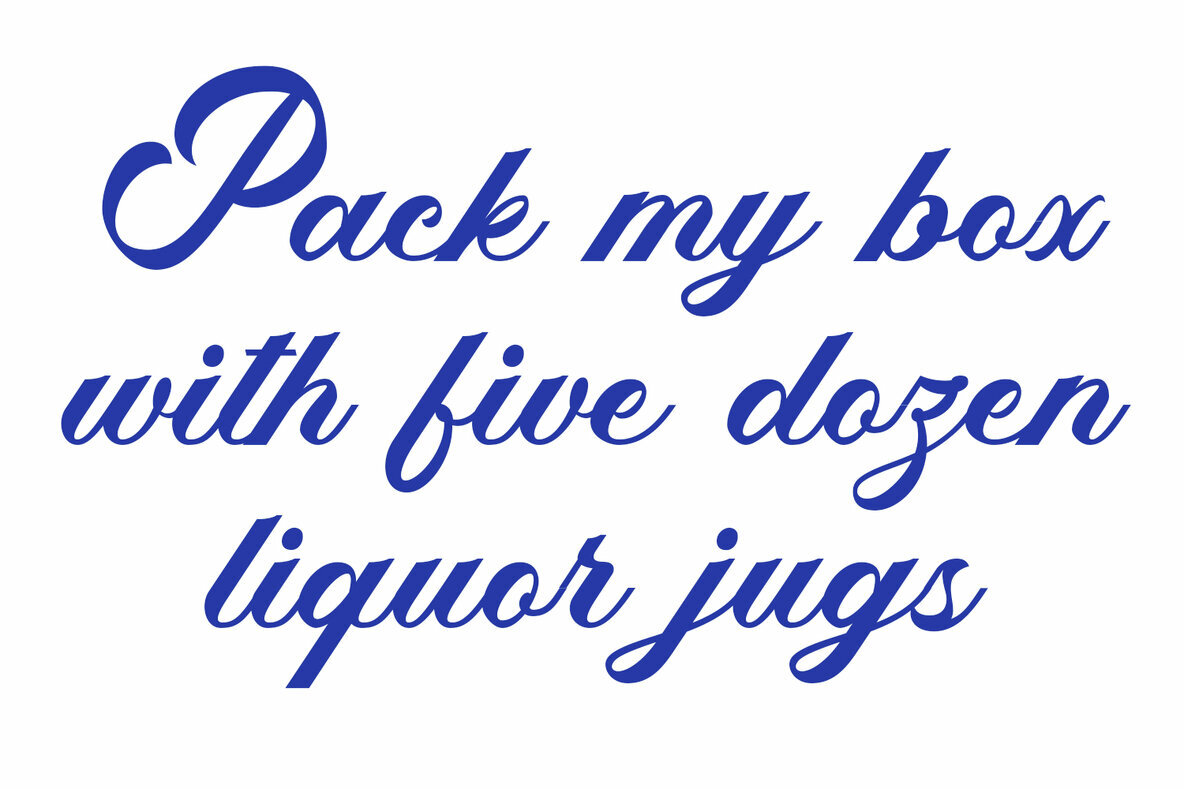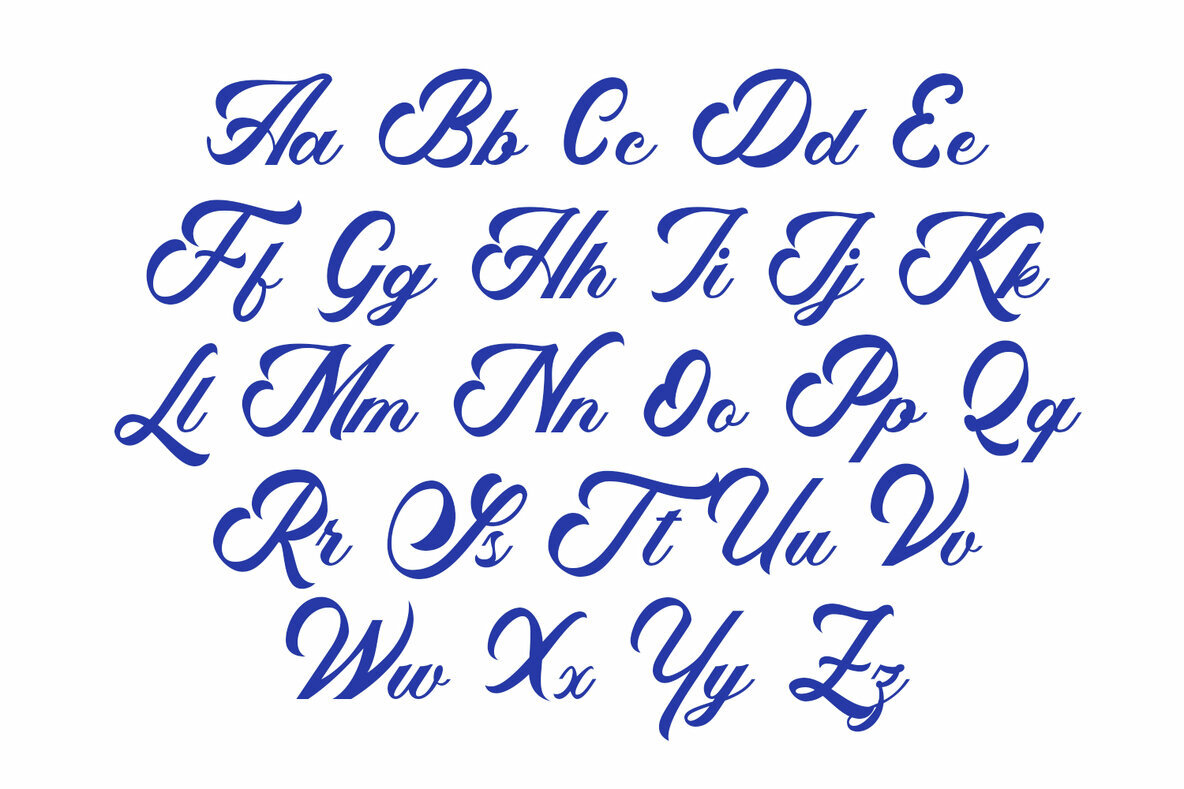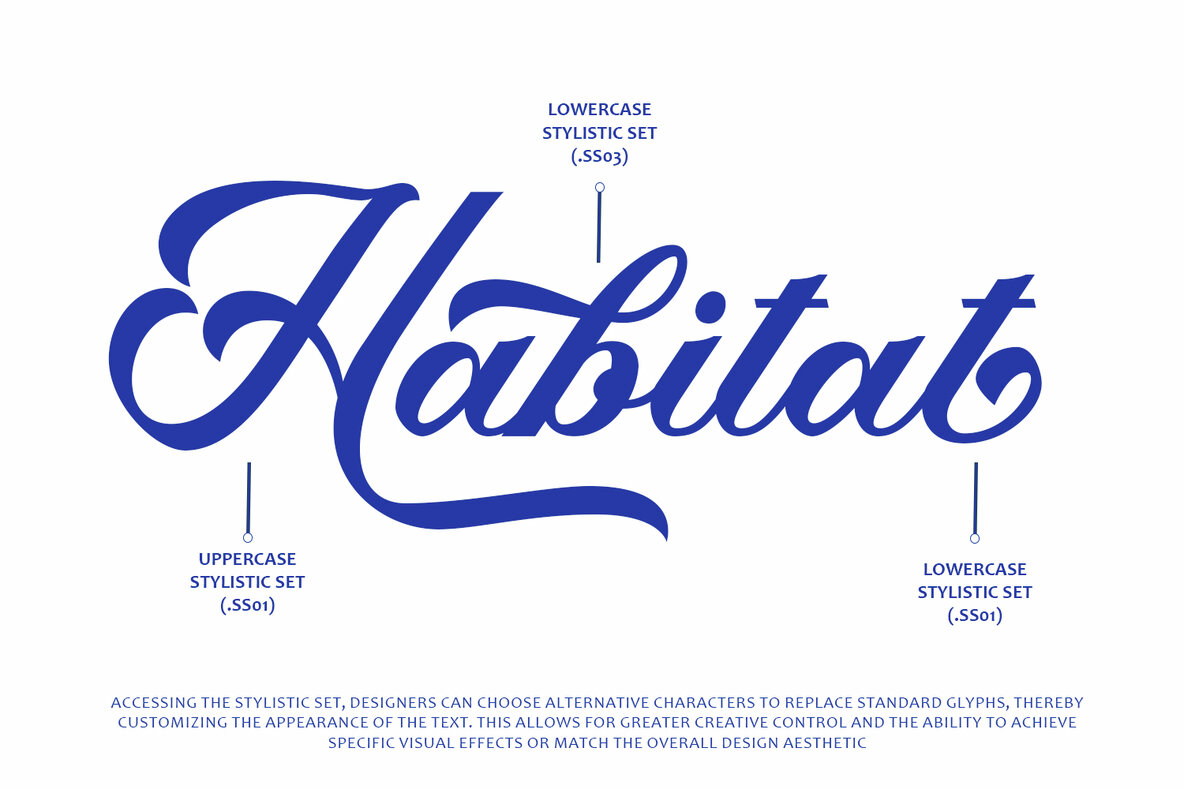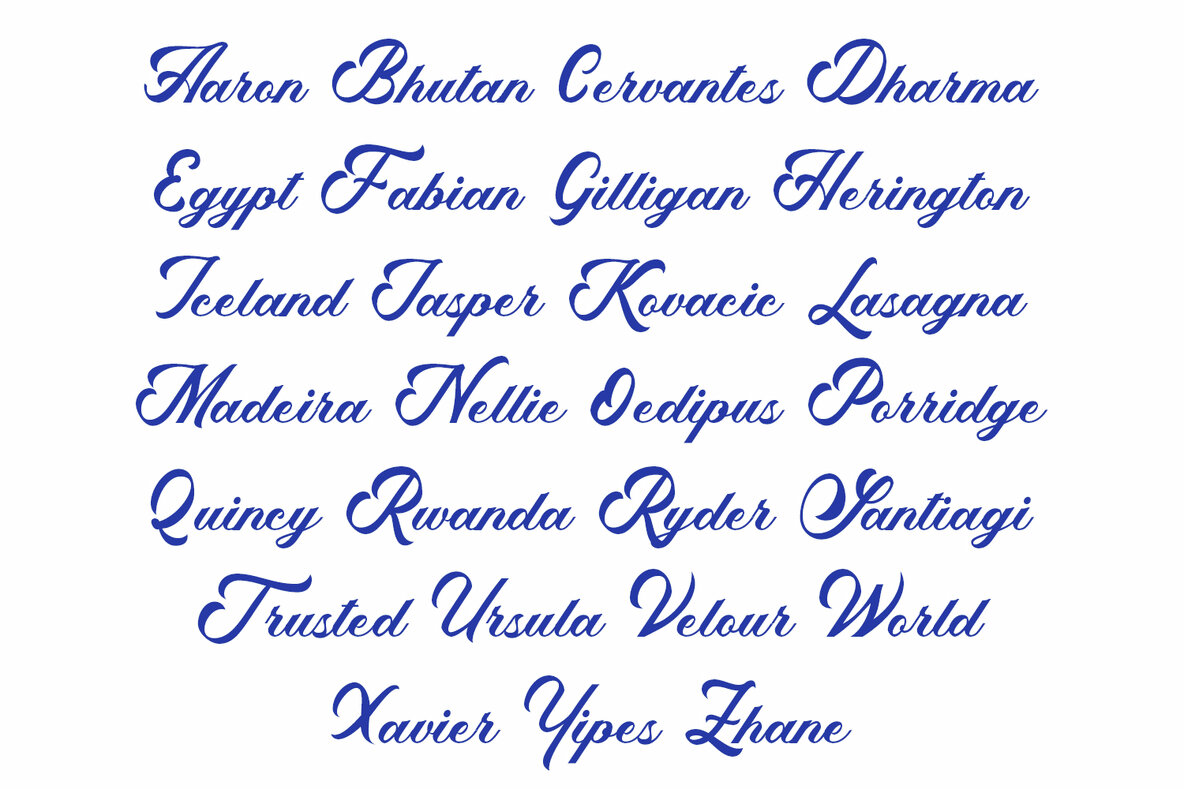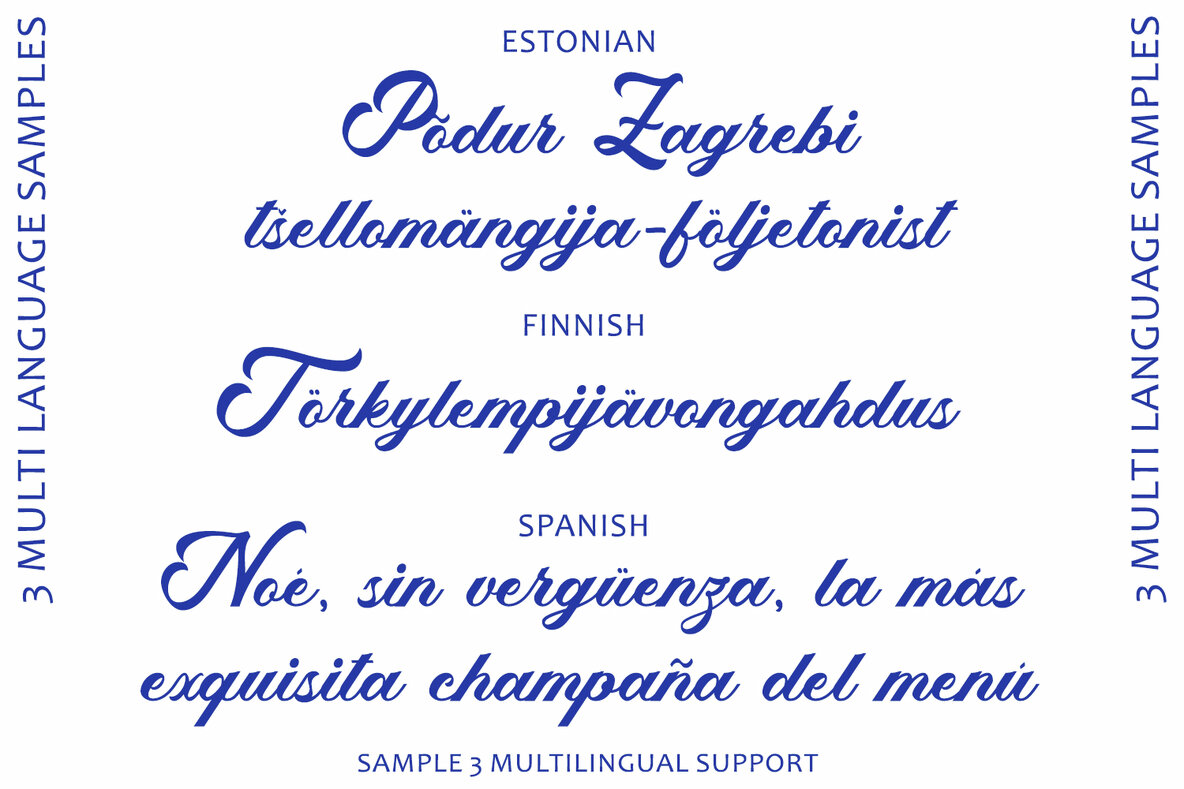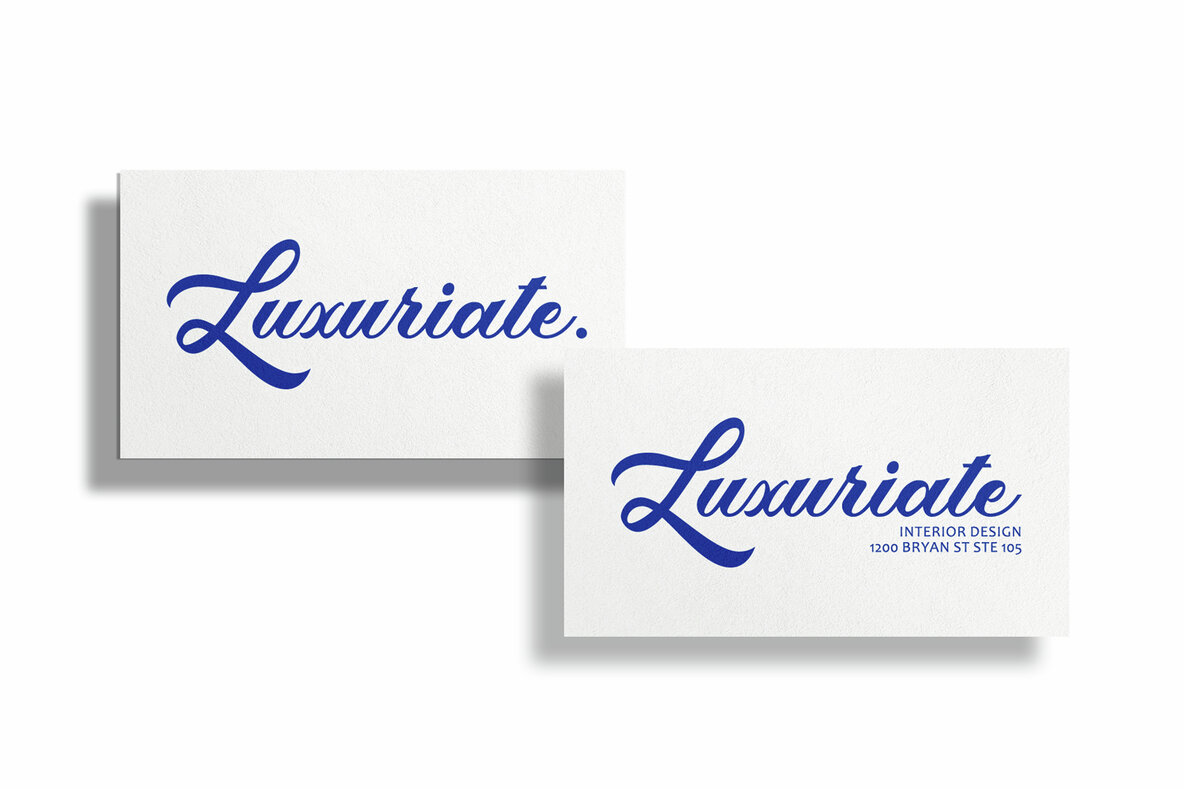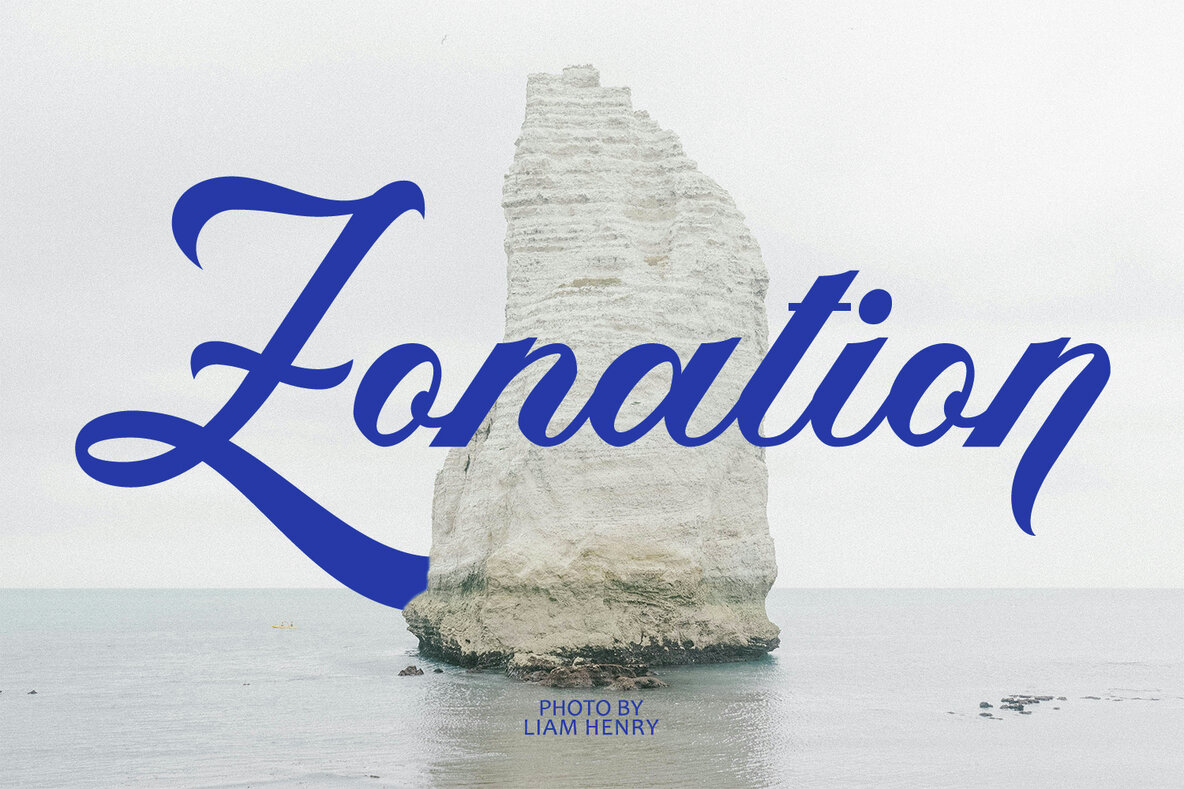
Ganglion Font
Ganglion
Ganglion is a robust and commanding script typeface that exudes strength and boldness, making it perfect for various design applications. Its powerful presence captures attention with strong and bold letterforms, suited for impactful headlines, logos, and branding. The font's assertive script style conveys confidence and authority, enhancing the impact of any design.
Designed with solid construction and sturdy lines, Ganglion offers a sense of stability and reliability. Its bold strokes and well-defined shapes ensure high visibility and legibility, even at smaller sizes or from afar. Despite its bold appearance, the font boasts a distinctive character with sharp angles and strong lines, giving it a contemporary edge. This makes it an excellent choice for modern design projects that need a bold and dynamic typography.
Versatile and adaptable, Ganglion transitions seamlessly into various design contexts such as advertising, packaging, posters, and branding. It adds a sense of strength and determination to any project. The font's expressive letterforms allow designers to convey emotions, personality, and style, evoking feelings of confidence, energy, and power. Overall, Ganglion stands out as a strong and bold script typeface that commands attention and brings a powerful statement to any design project. Its presence, construction, and character make it an excellent choice for those seeking boldness in their typography.